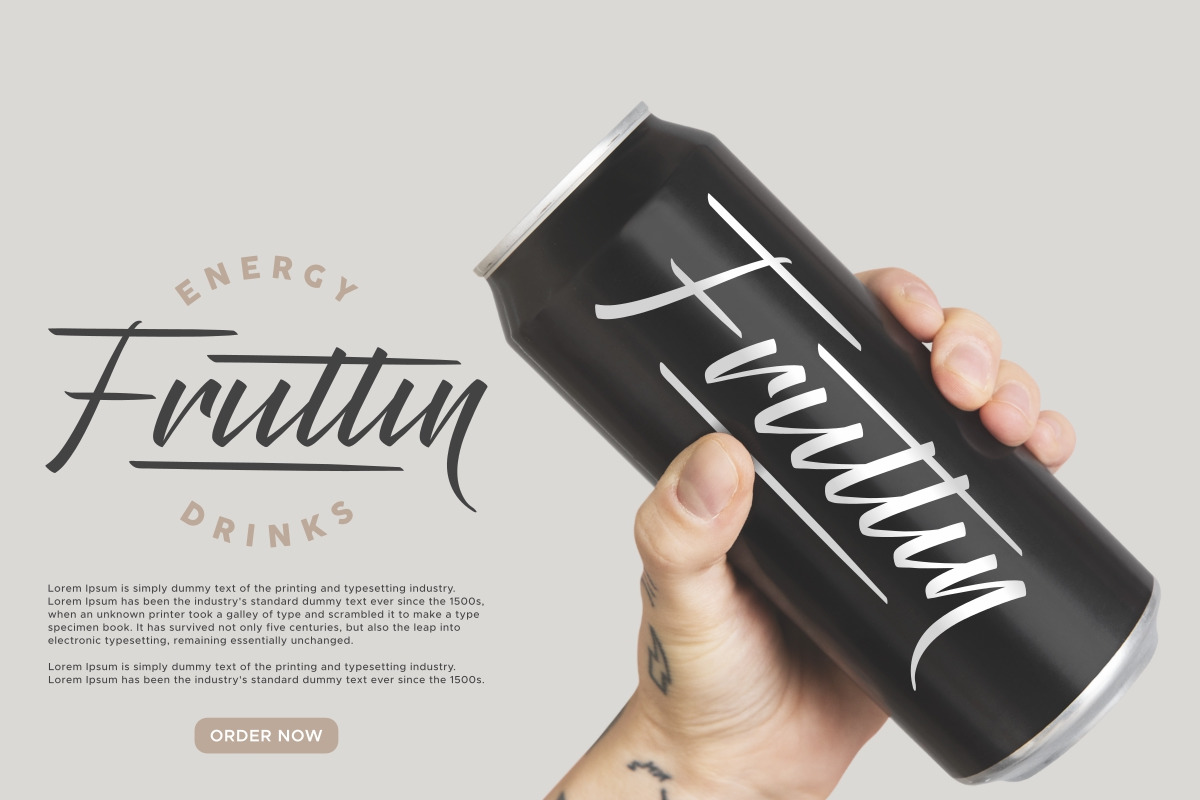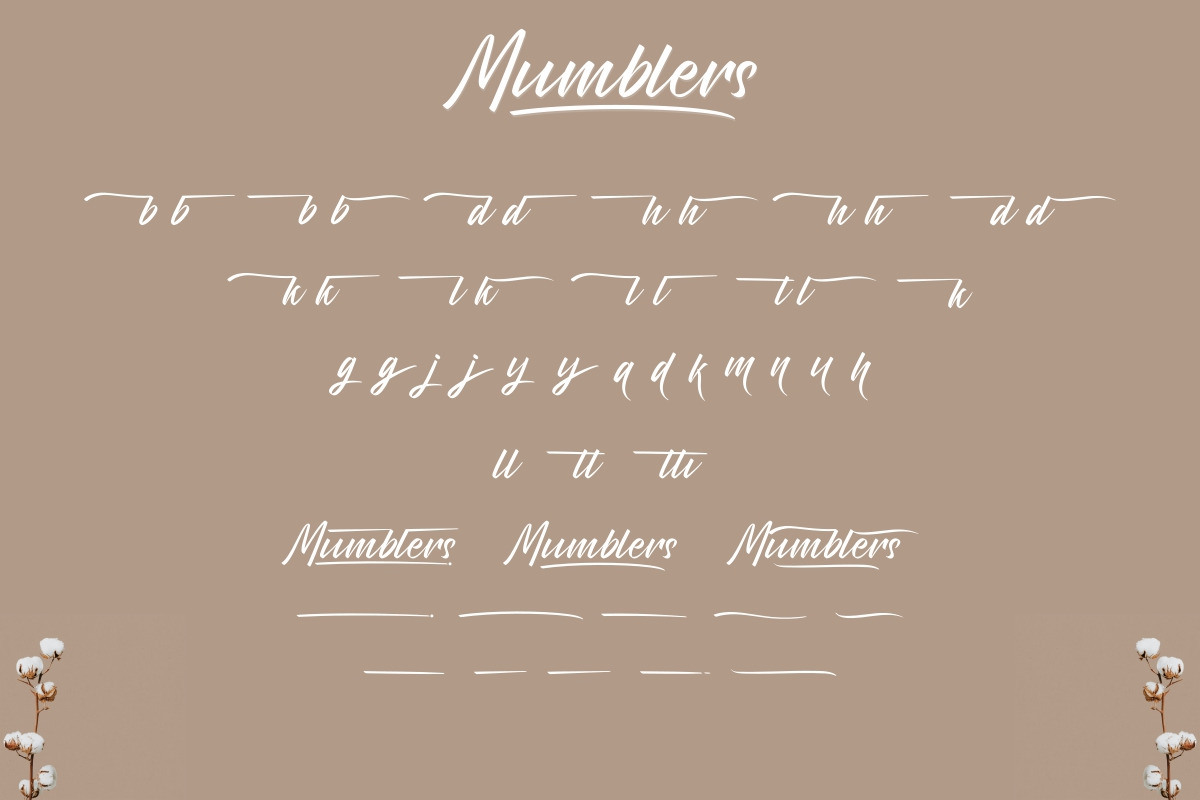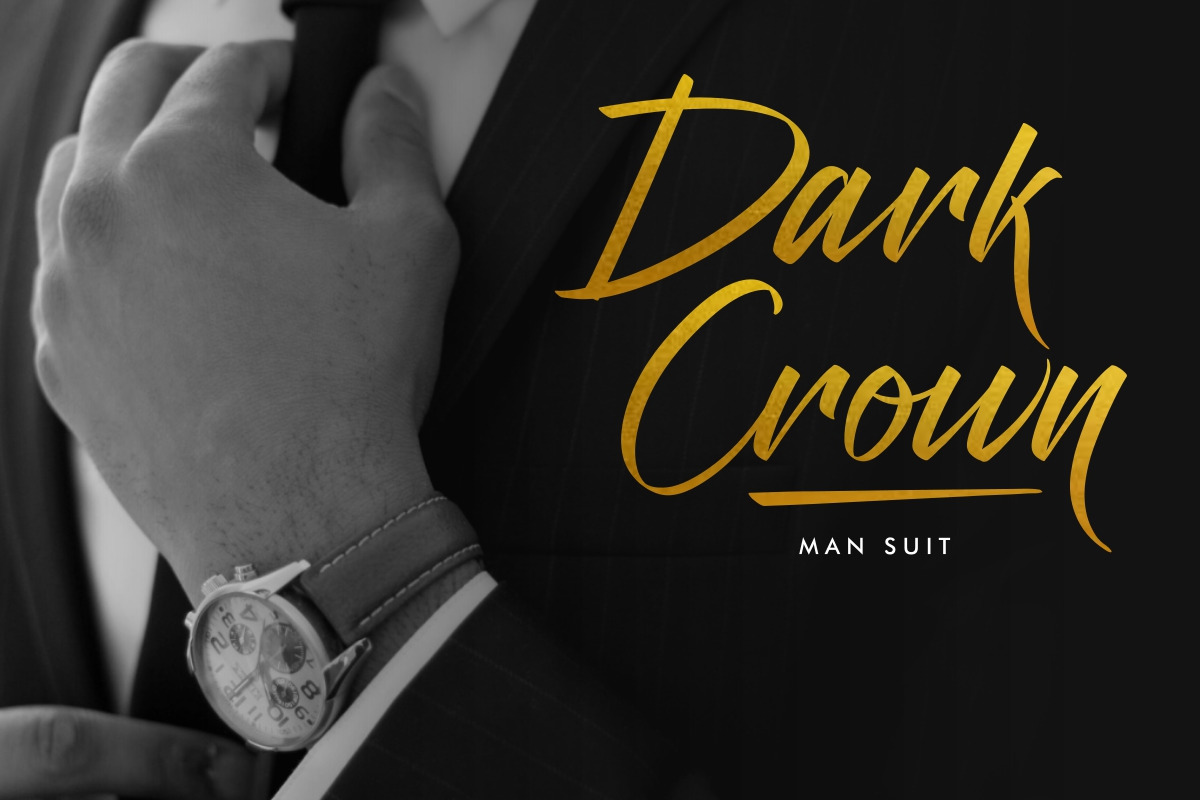
Mumblers Font
Mumblers Font is a script font in a calligraphic handwritten style that will amaze any of your particular projects including : weddings, promotion, events, branding, advertising etc
Mumblers Font includes full set of gorgeous uppercase and lowercase letters, numerals, a large range of punctuation and ligatures. All letters has realistic hand-lettered style to make it unique yet stunning design.